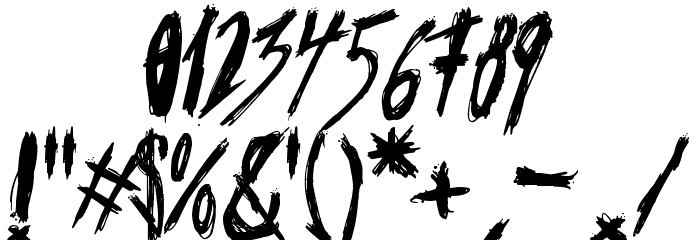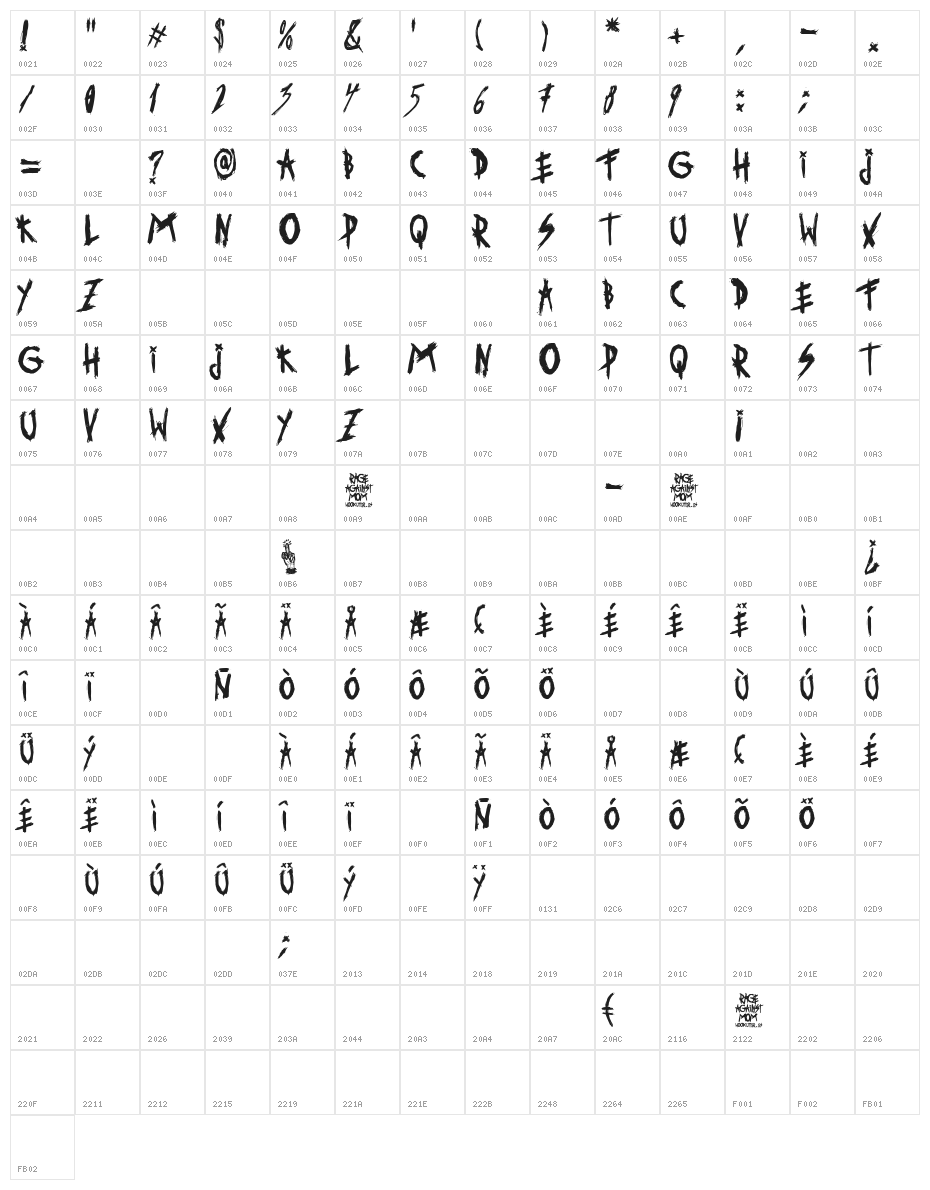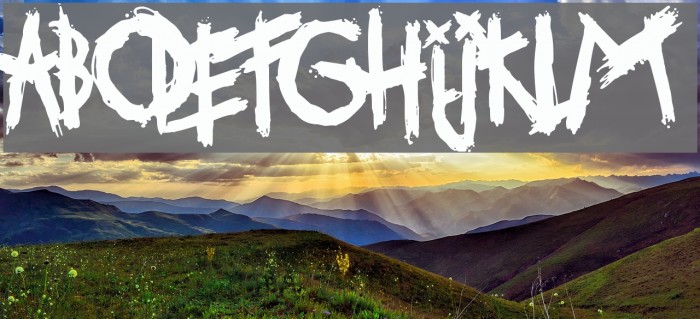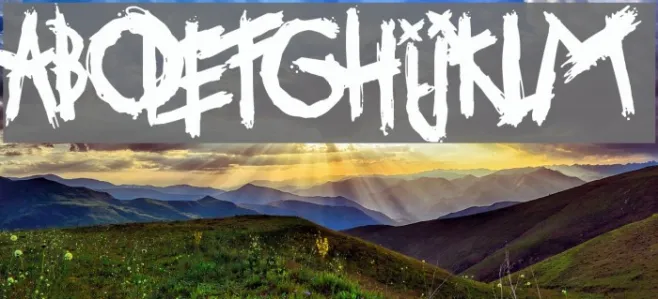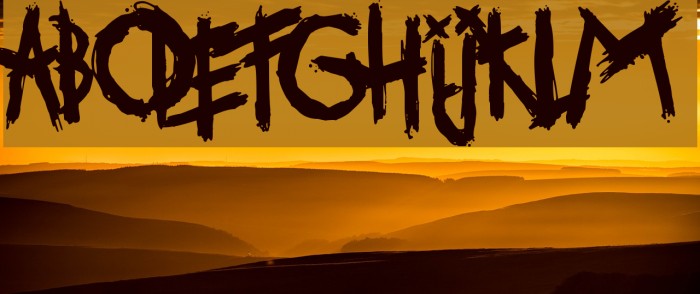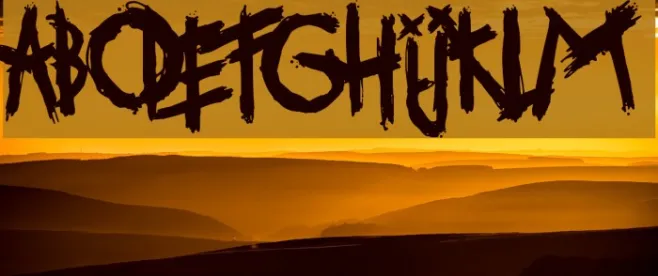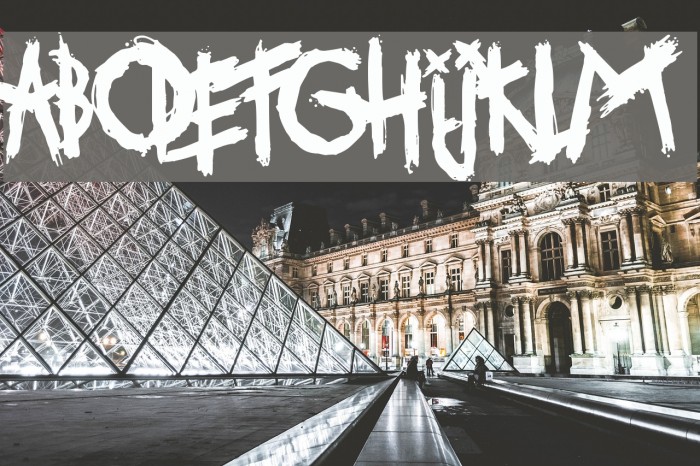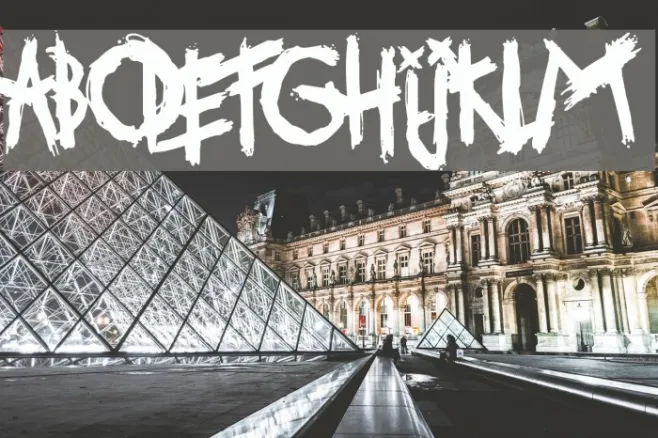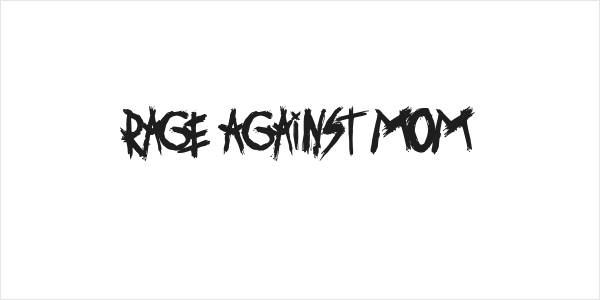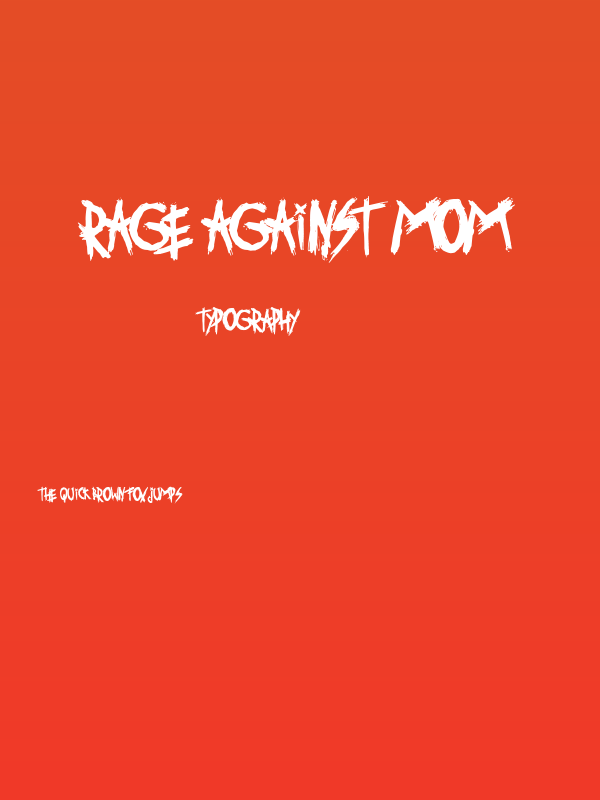
Rage Against Mom Font
Rage Against Mom Description
This font features a bold, aggressive style with a hand-drawn appearance. The characters are jagged and irregular, giving a sense of raw energy and rebellion. The strokes are thick and uneven, with a rough texture that suggests a sense of urgency and intensity. The uppercase and lowercase letters maintain a consistent chaotic aesthetic, while the numbers and special characters follow the same dynamic style. This font is ideal for projects that require a strong, impactful visual statement.
| Overall Style | Modern, Edgy |
| Proposed Projects | Album covers, posters, graffiti art, rebellious branding, and edgy graphic designs. |